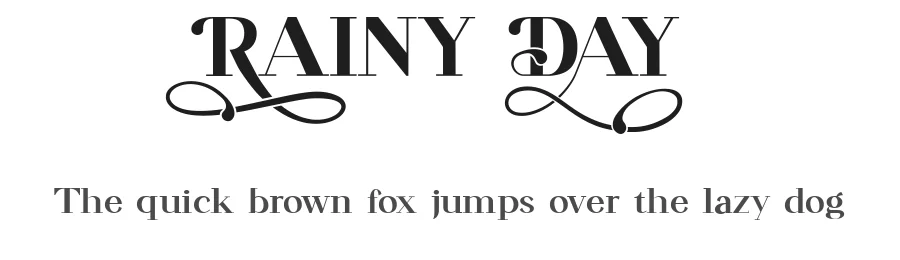
About Grandline Font
| Designer | Nuryanto Dwi |
Grandline Font is a versatile serif font that works for both headings and body text. Pair it with a contrasting sans-serif or slab serif font to add visual interest and a clear distinction between titles and body copy.
Grandline Font
by Nuryanto Dwi